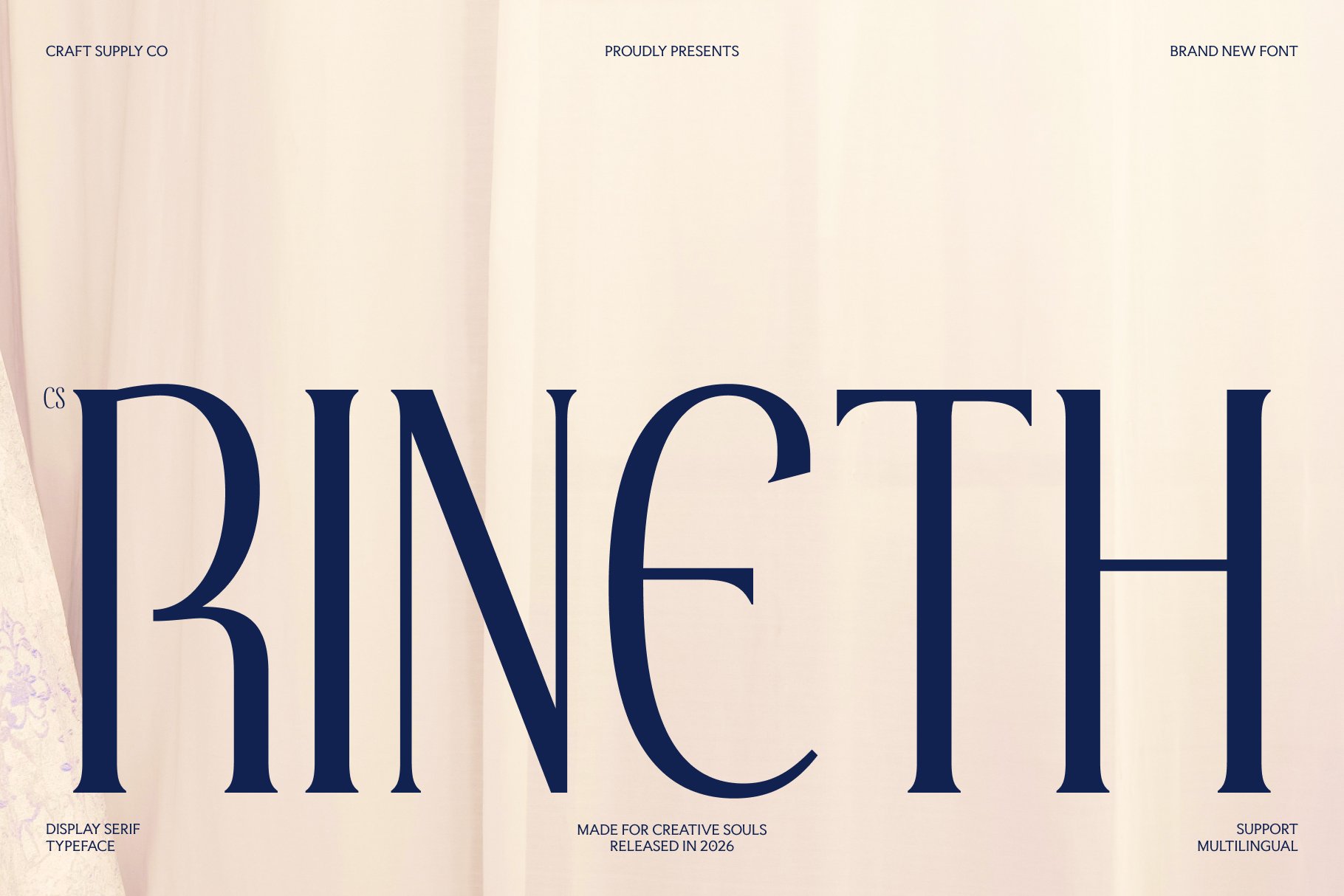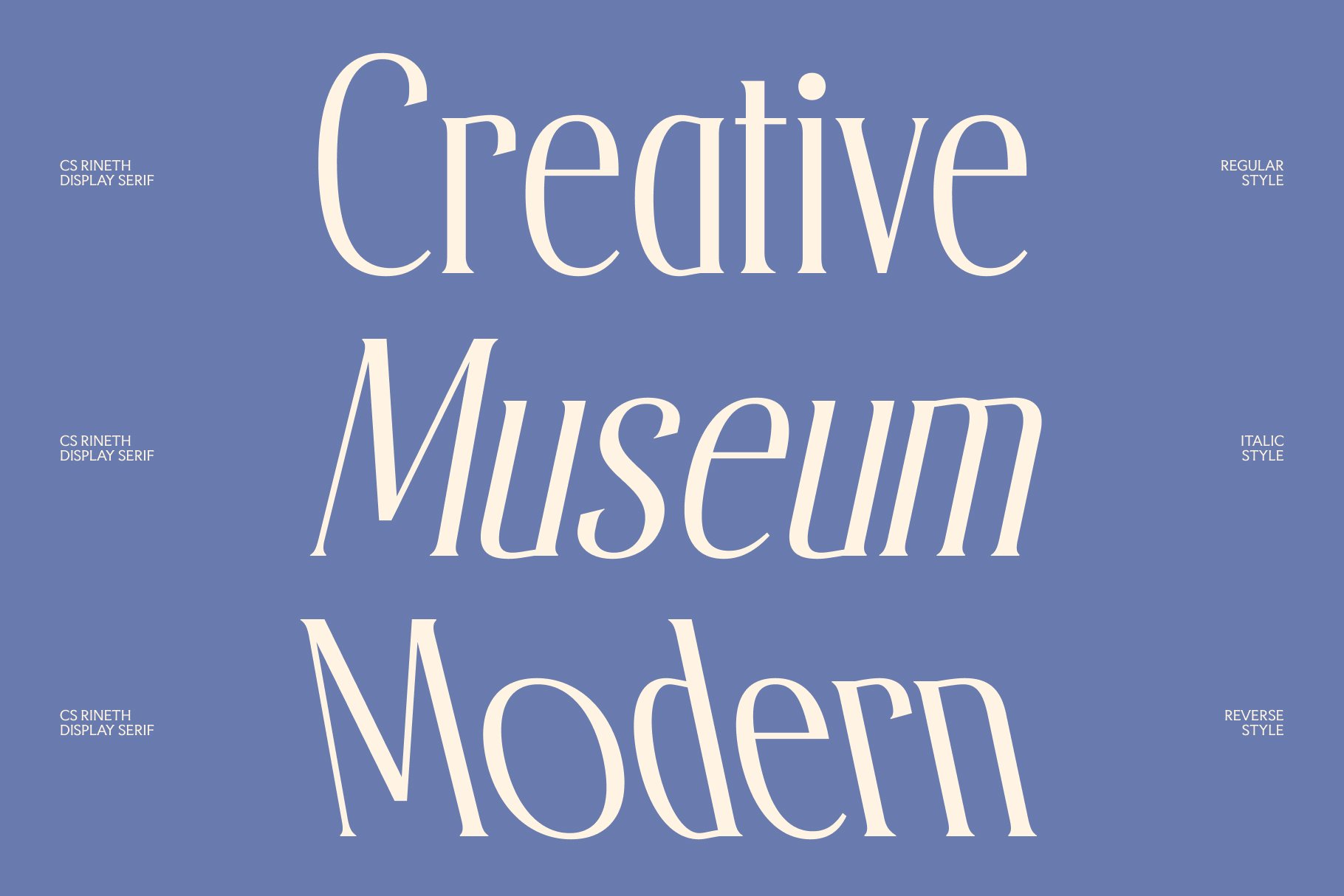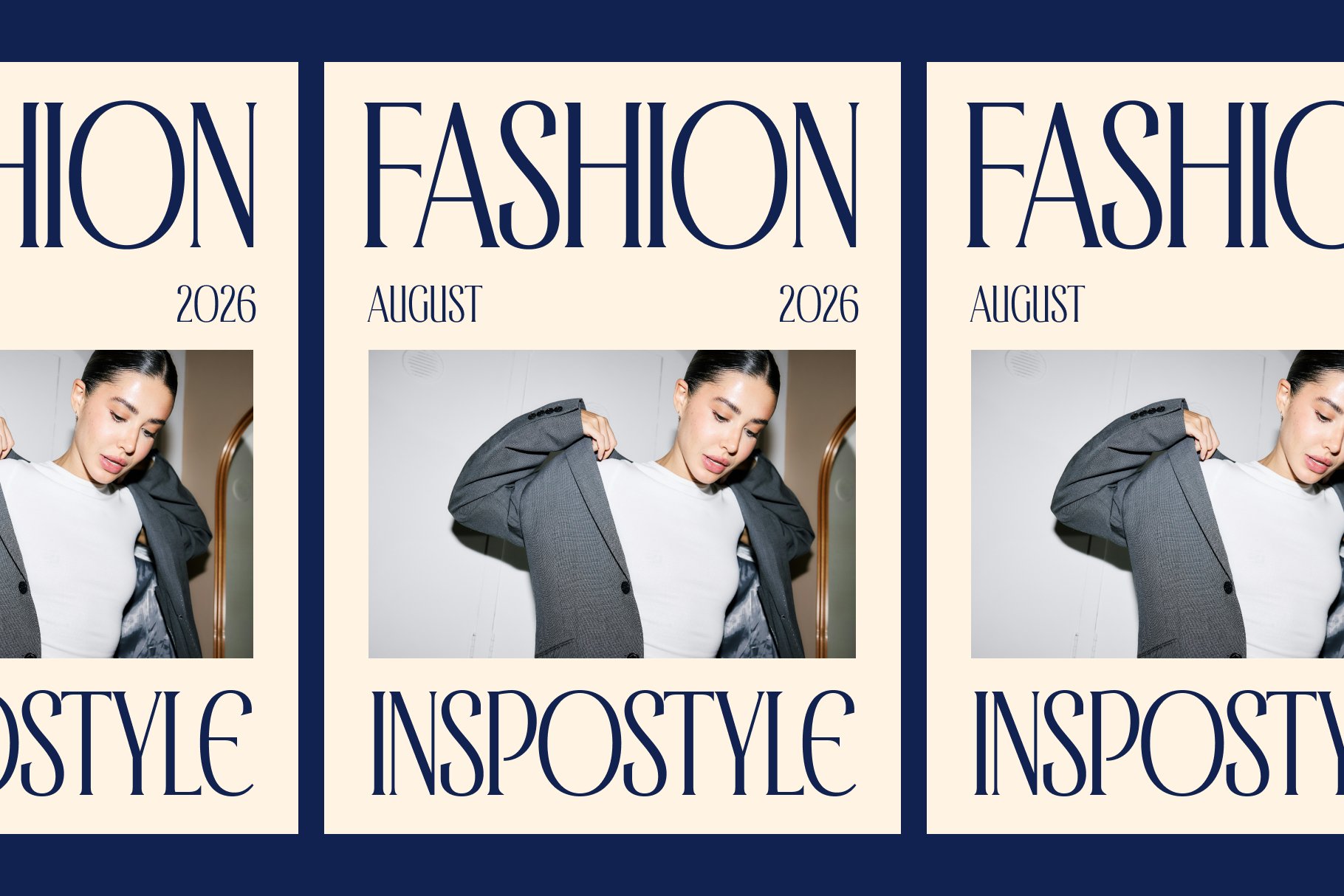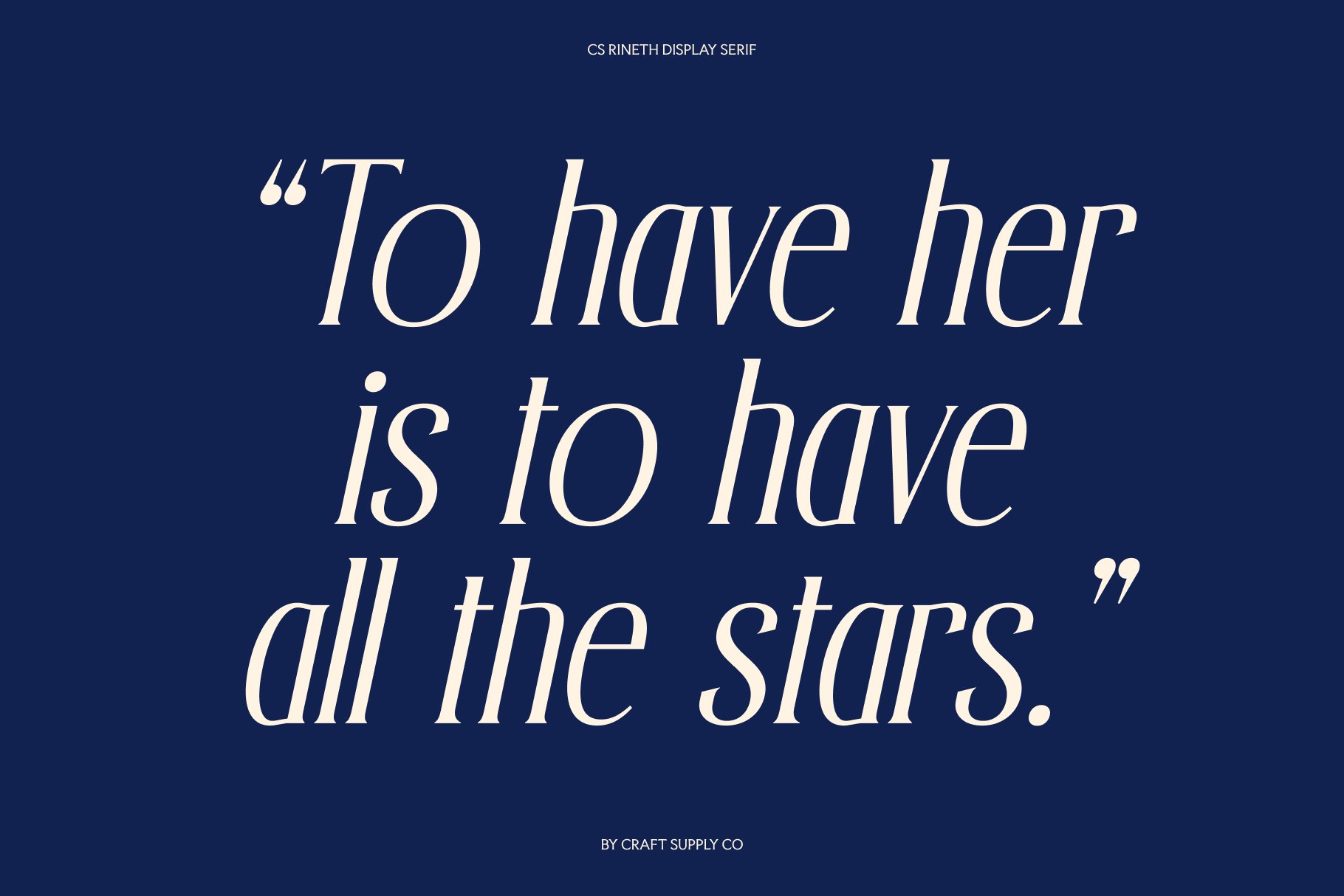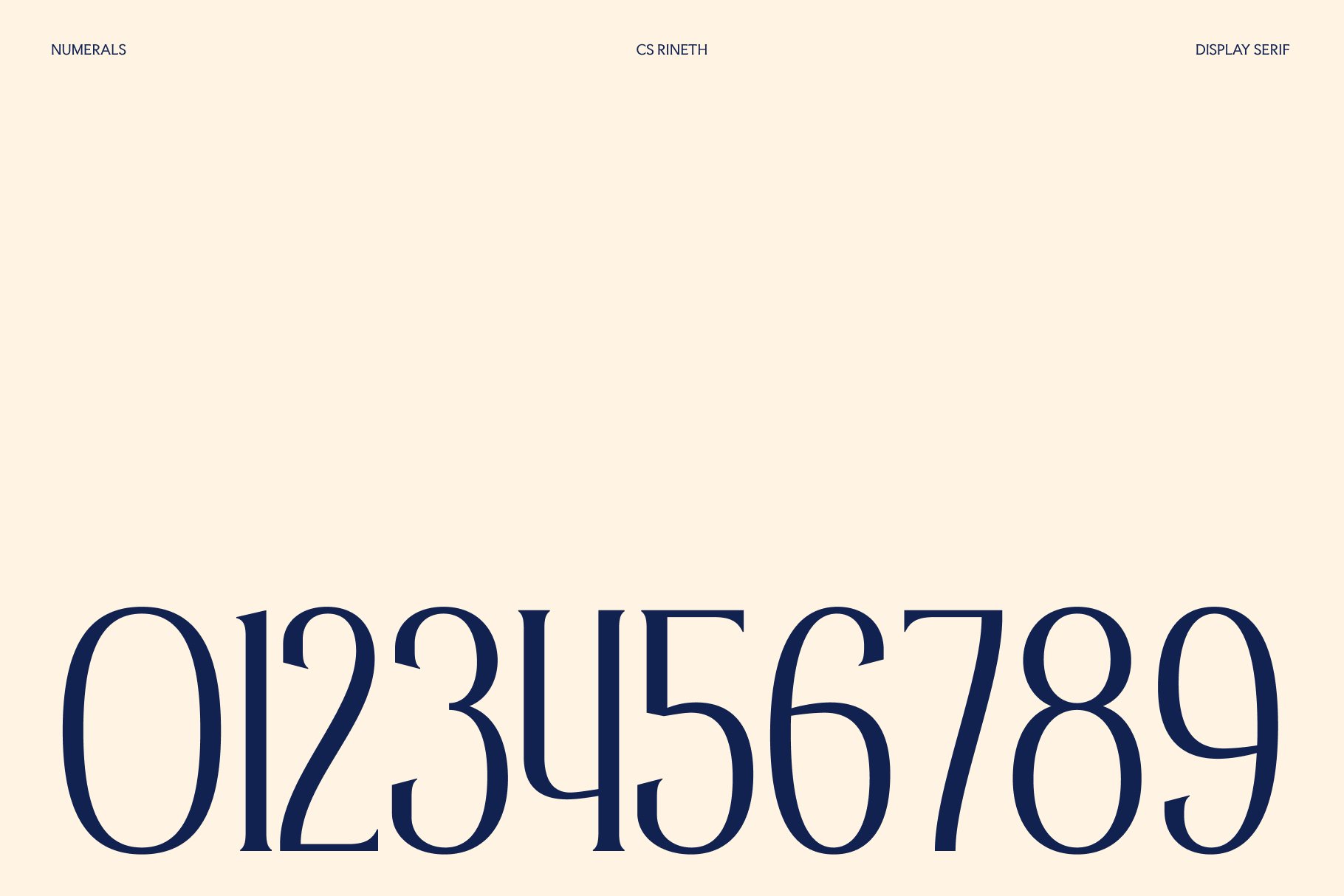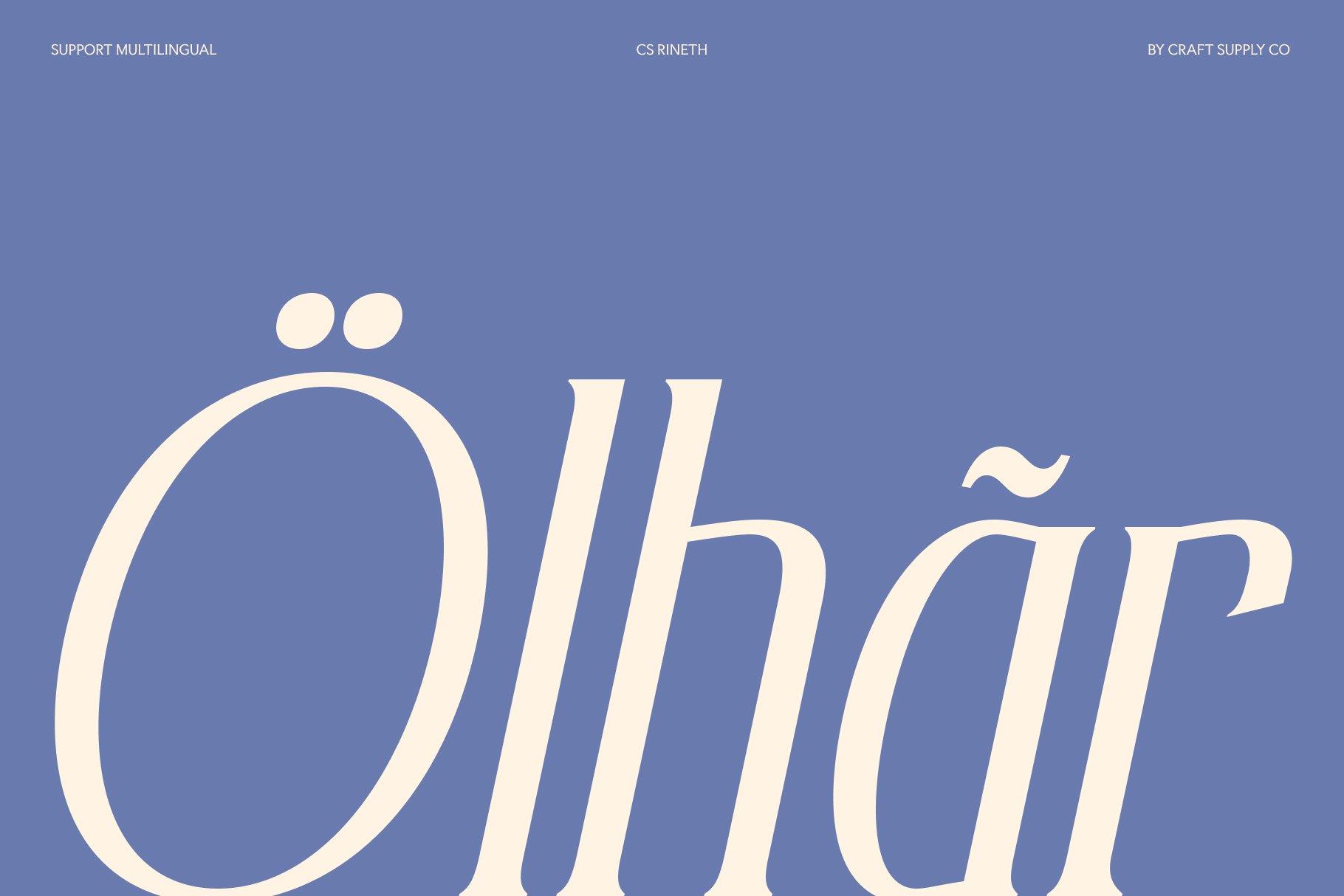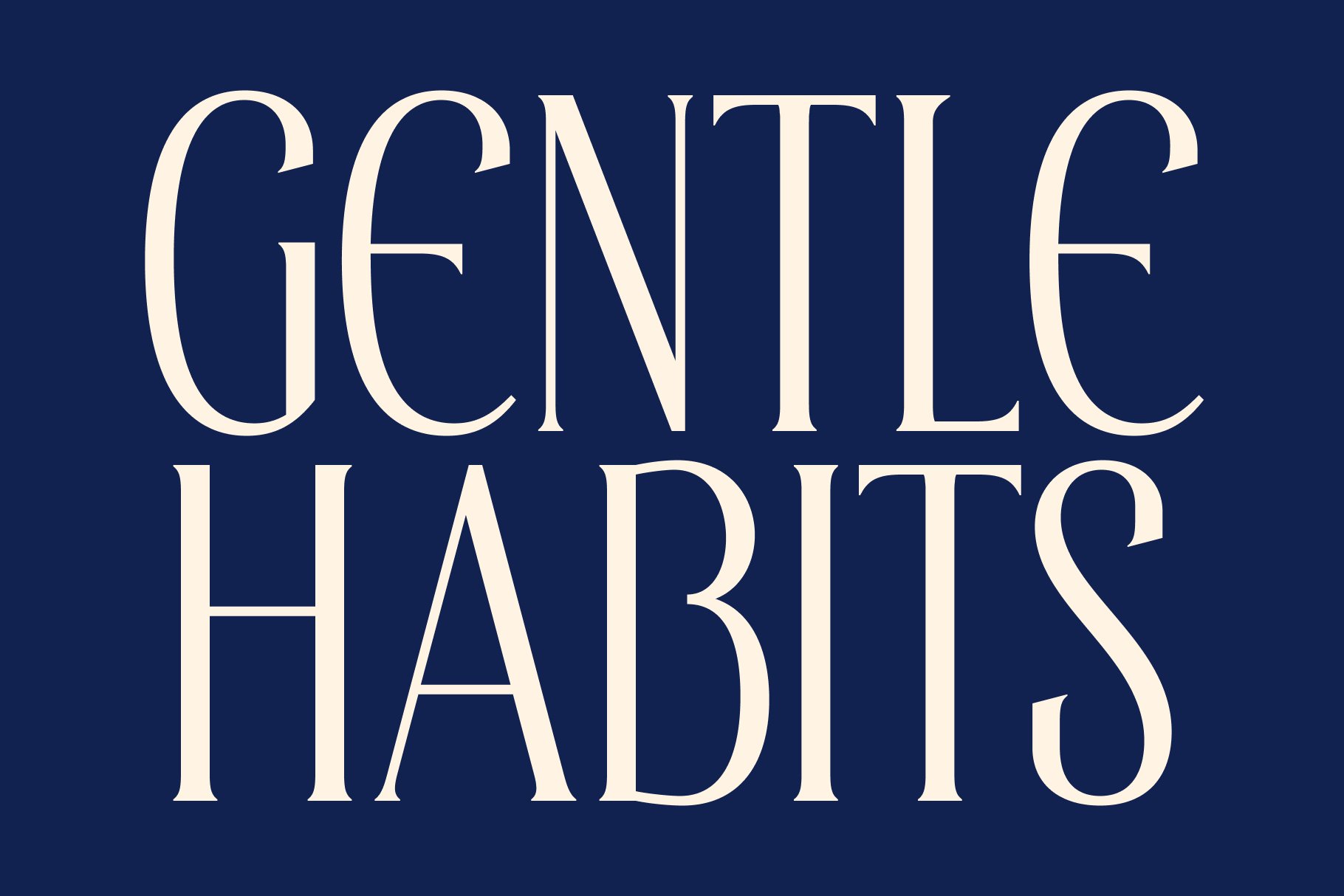
This is a commanding display serif designed for those who seek a sophisticated and luxurious visual presence. Defined by its tall, elegant letterforms, the typeface creates an immediate sense of prestige and authority on the page.
The visual identity of this font is rooted in high-contrast vertical strokes paired with graceful character curves. This intentional structural balance ensures that each glyph feels refined, offering a sharp professional edge while maintaining a fluid, organic motion.
Because of its dramatic proportions, this typeface is an ideal choice for upscale fashion branding and high-end product packaging. It commands attention in large scales, making it a powerful tool for logos and identity systems that require a sense of exclusivity.
Beyond branding, this font excels in elegant editorial layouts. Whether used for mastheads or striking headlines, its architectural precision elevates the reading experience, bringing a timeless, couture-inspired aesthetic to any modern publication or digital interface.
- CS Rineth Regular
- CS Rineth Italic
- CS Rineth Reverse Italic
- Uppercase and lowercase characters
- Numerals and Punctuation (OpenType Standard)
- Accents (Supports Multilingual Characters)